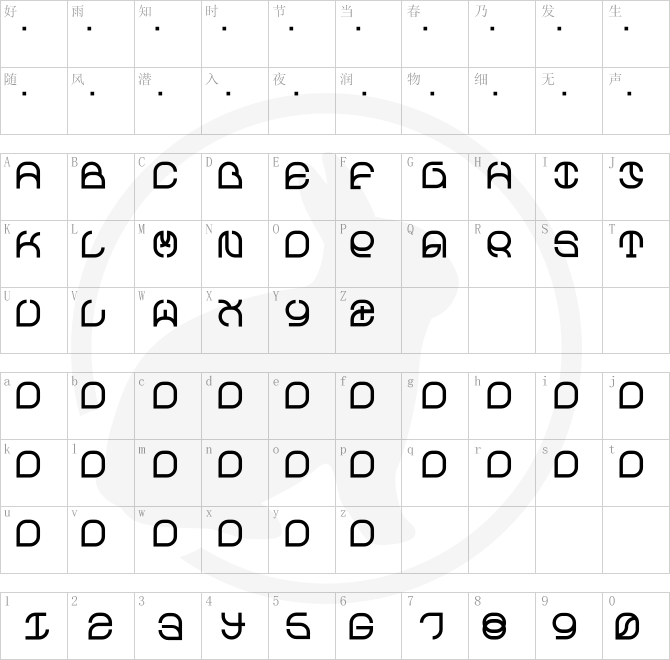
Z_exMastang.ttf is a very beautiful artistic font, Z_exMastang.ttf is widely used in the design and printing of various books and pictures,Z_exMastang.ttf has a strong visual impact,Z_exMastang.ttf is a commonly used font in newspapers, magazines and books, and is used in posters, e-commerce Poster design, store design, logo design, font design and other fields.Z_exMastang.